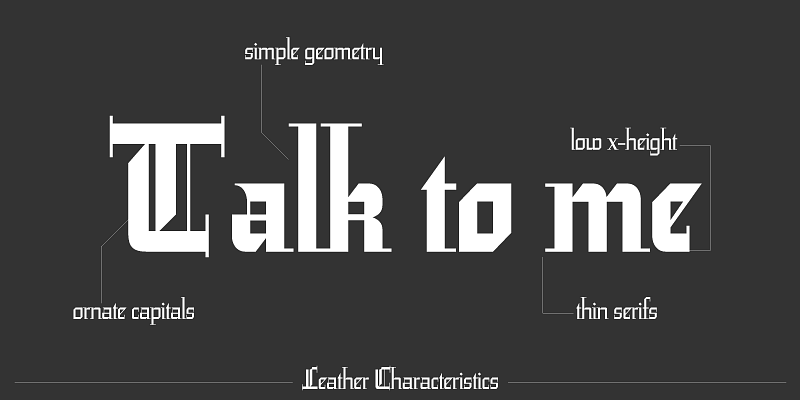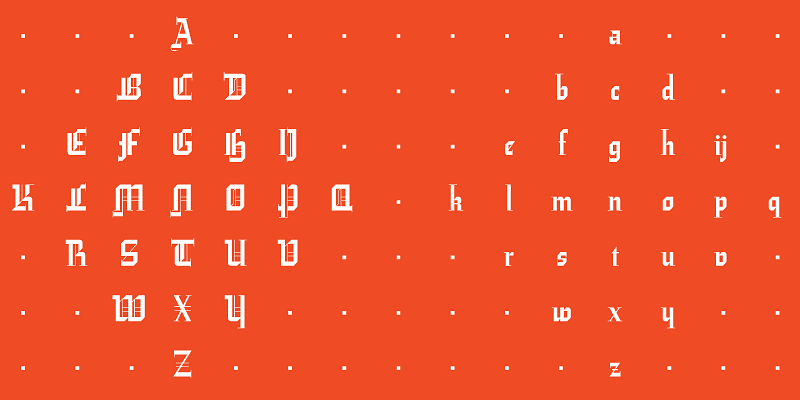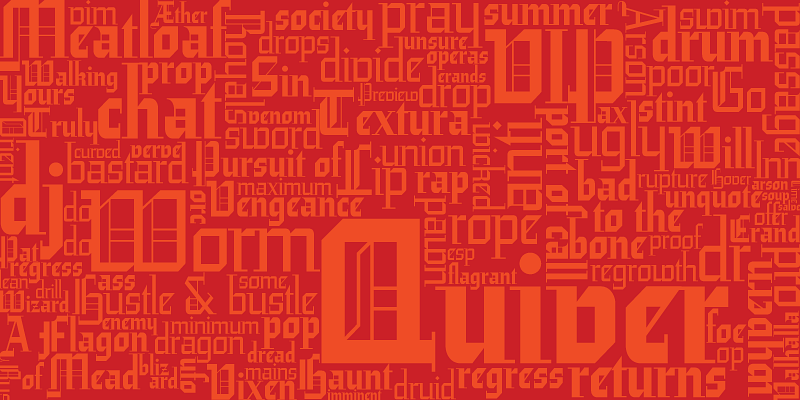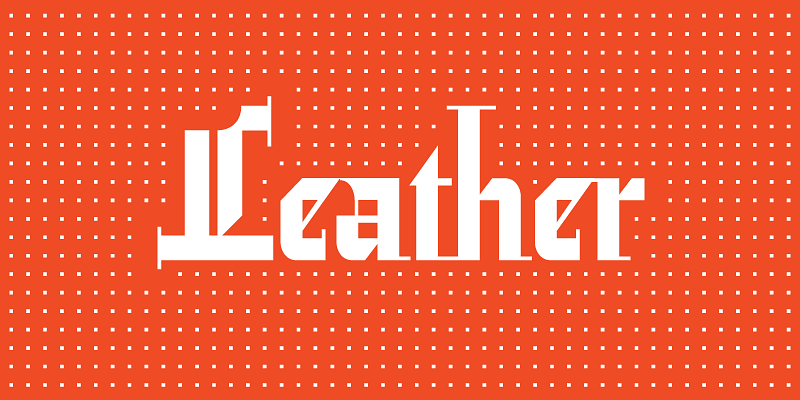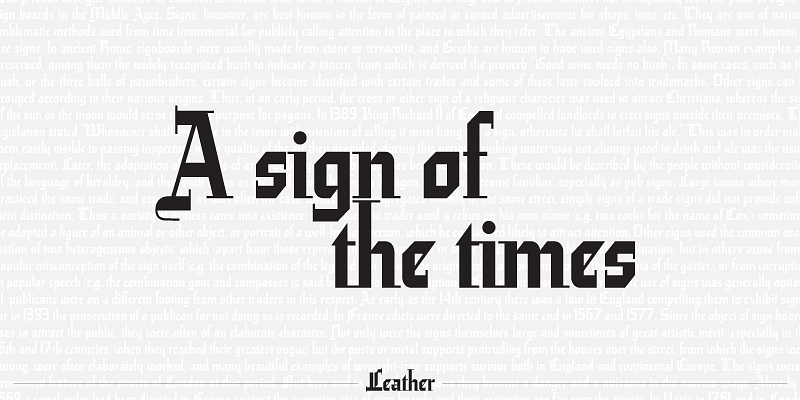
Leather is a retooling of Imre Reiner’s 1933 Gotika design, which was very much ahead of its time. Its fragility was problematic for printers at the time, but now it seems like it was made for current grid-based technologies.